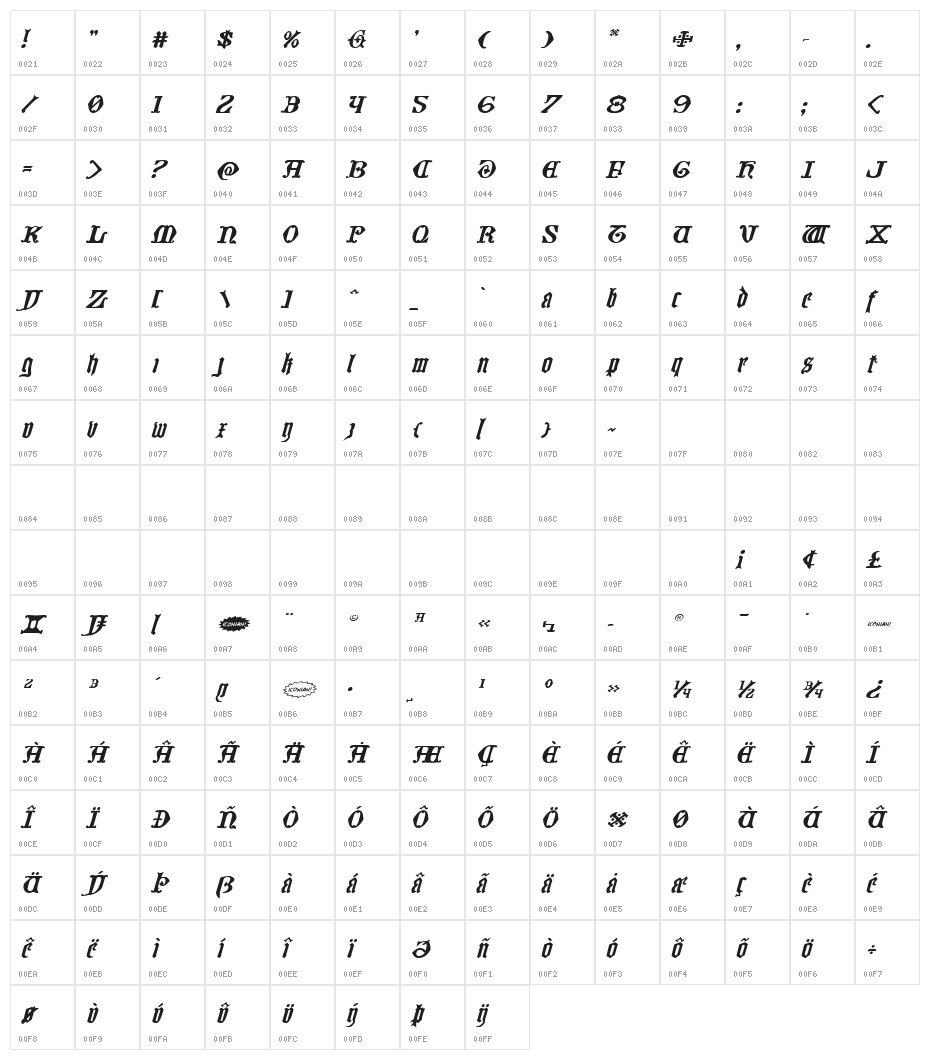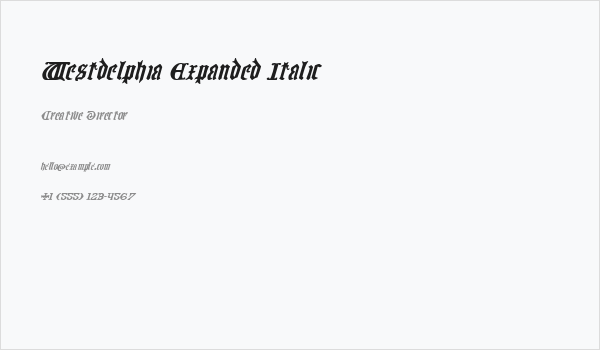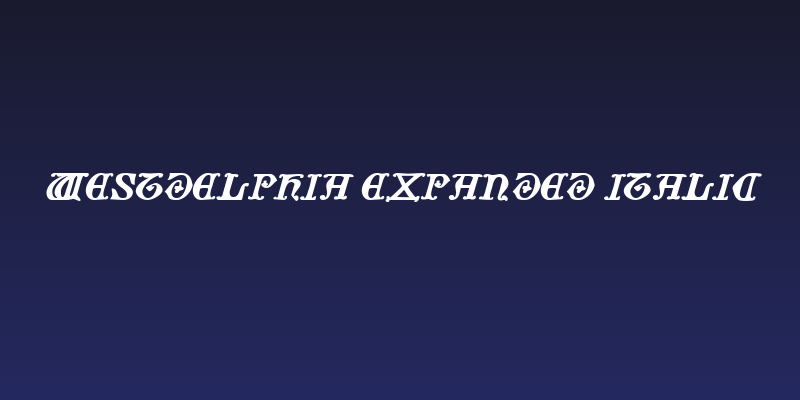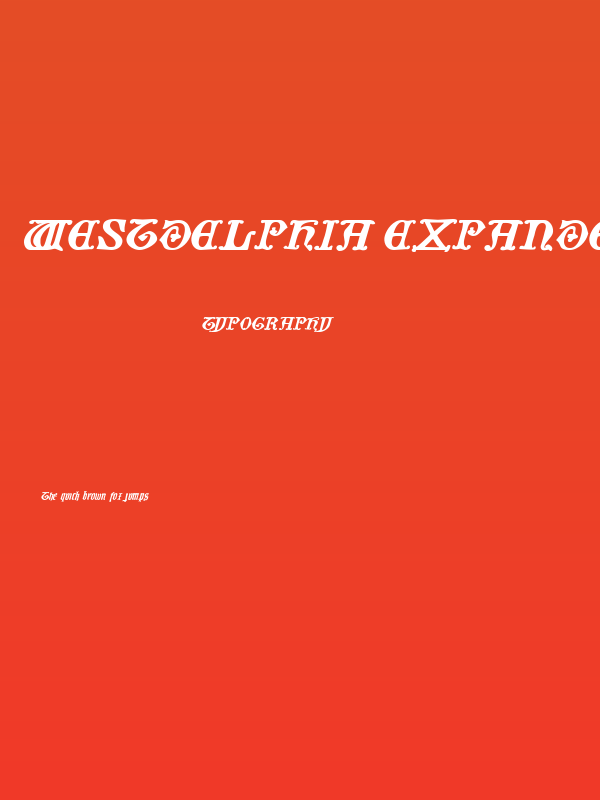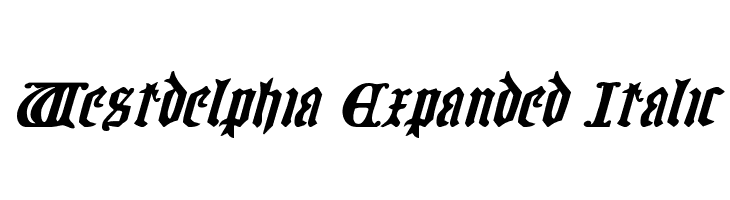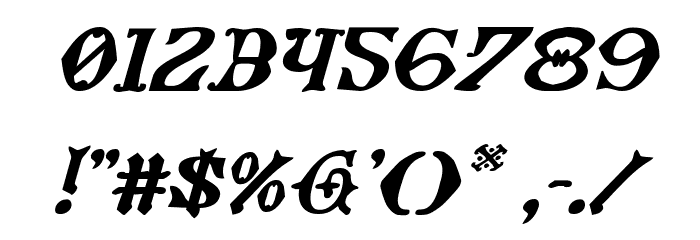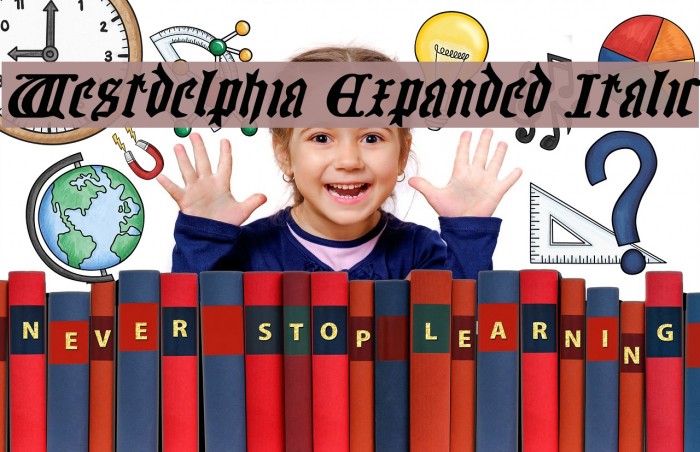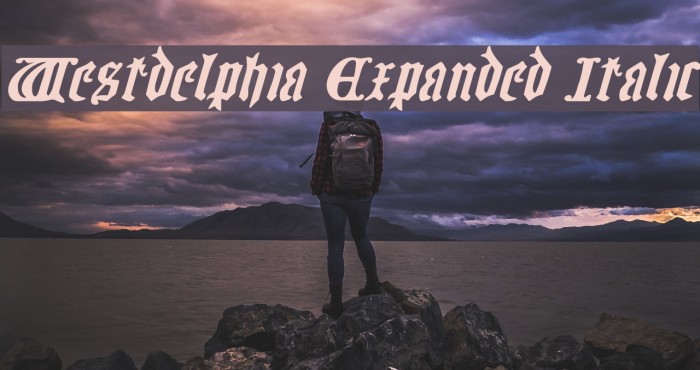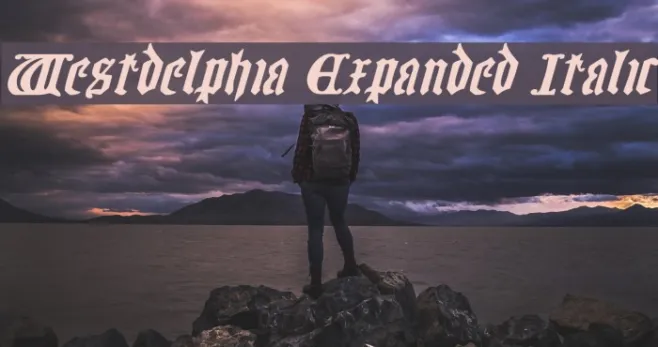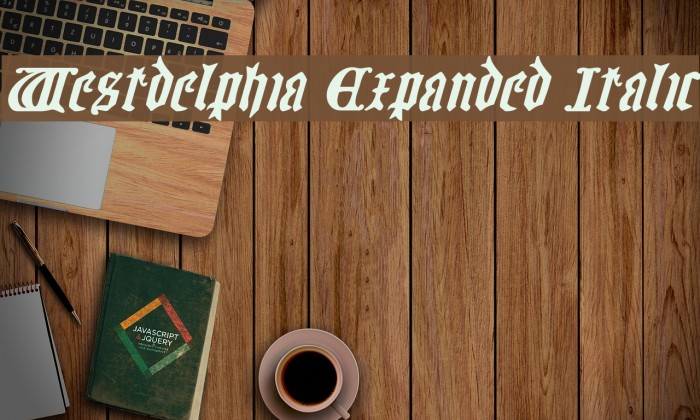
Westdelphia Expanded Italic Font
Westdelphia Expanded Italic Description
This font features a bold and dramatic style with a distinct blackletter influence. The characters are designed with sharp, angular strokes and a high contrast between thick and thin lines, giving it a strong visual impact. The uppercase letters are particularly ornate, with intricate details that enhance their decorative appearance. The lowercase letters maintain a cohesive look with a slightly more restrained design, ensuring readability while preserving the overall aesthetic. The numerals and special characters are crafted to match the elaborate style of the alphabet, making this font suitable for projects that require a touch of elegance and historical flair.
| Use Case | Logos, Headlines, Posters |
| Proposed Projects | Ideal for use in branding, logos, posters, and any design project that seeks to convey a sense of tradition and sophistication. |